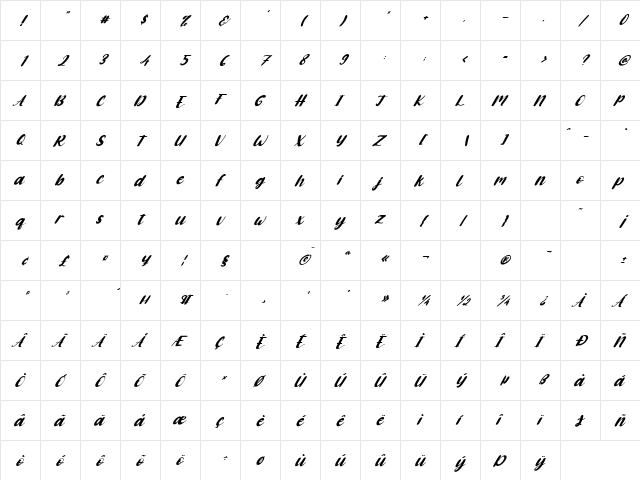
Cute Cartoon Italic
Design Context for Cute Cartoon Typeface
Cute Cartoon has an approachable, lighthearted character — its loose, expressive forms are well-suited to children's content, casual branding, and fun-first design. The dynamic lean of this cut emphasises speed and emphasis in any layout.
Font Pairing: Pairs well with a rounded or humanist sans for body copy, maintaining the friendly tone without relying on Cute Cartoon to carry extended reading.
Pro Tip: Avoid using Cute Cartoon for long passages of text — it works best for headlines, labels, and short calls to action.